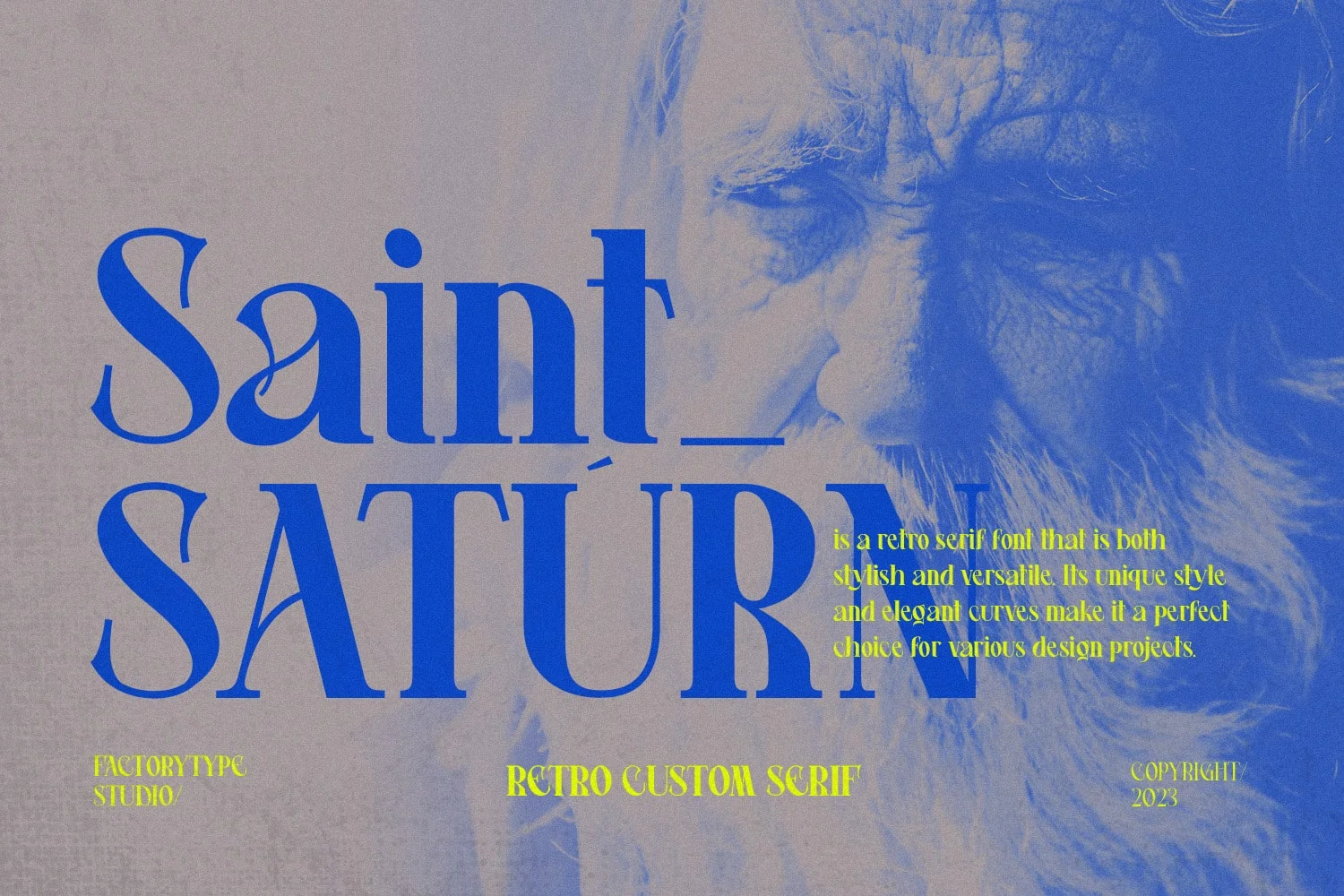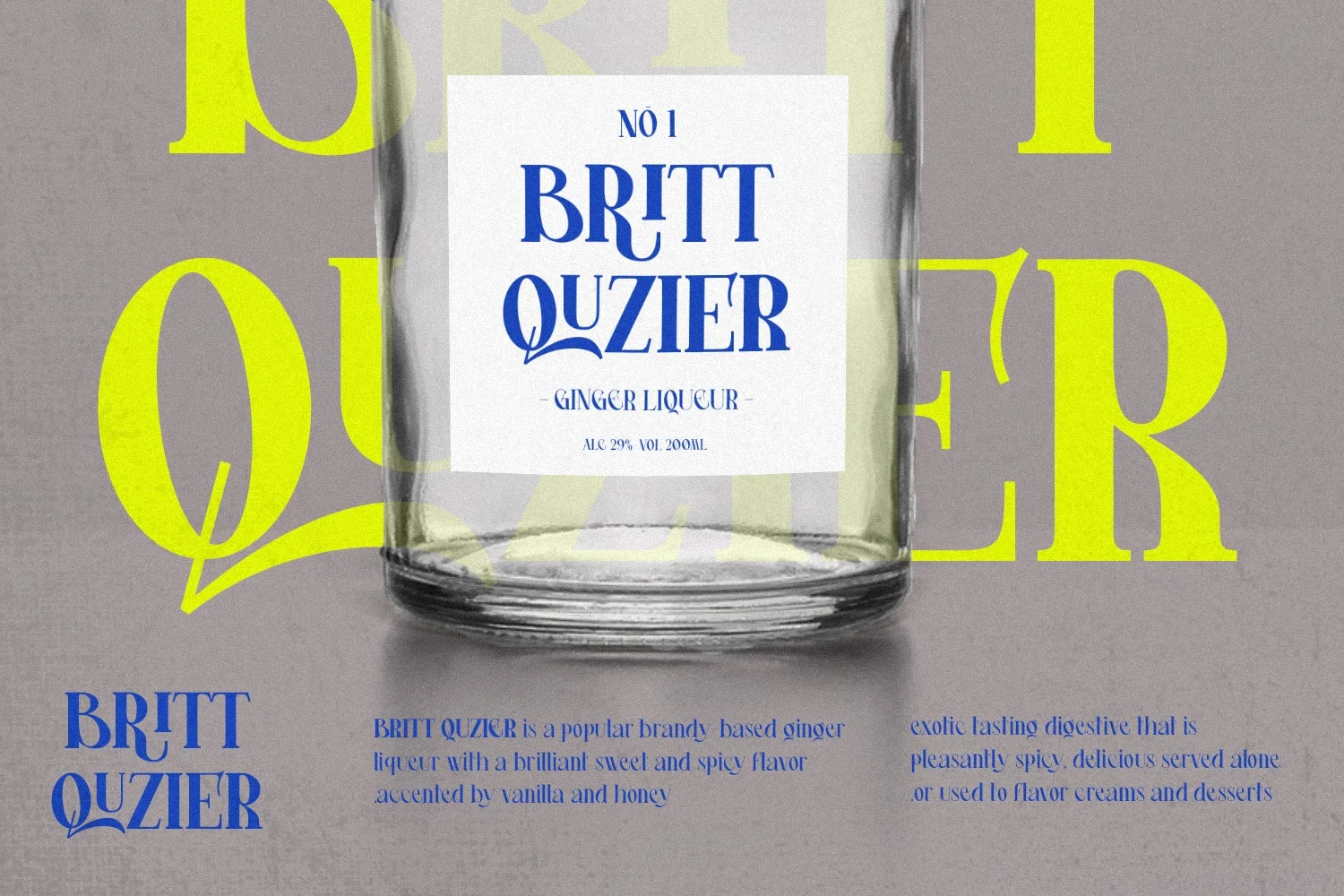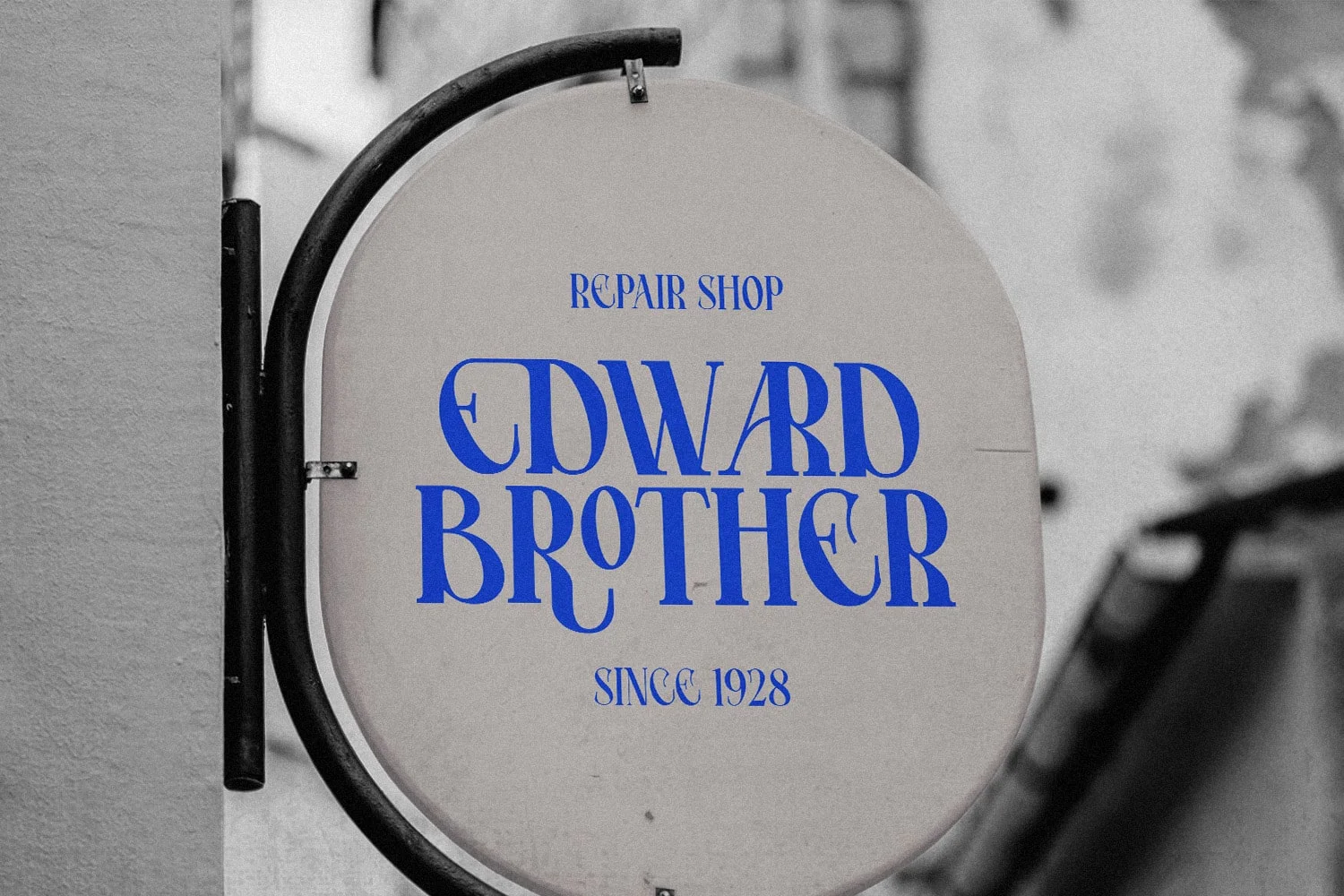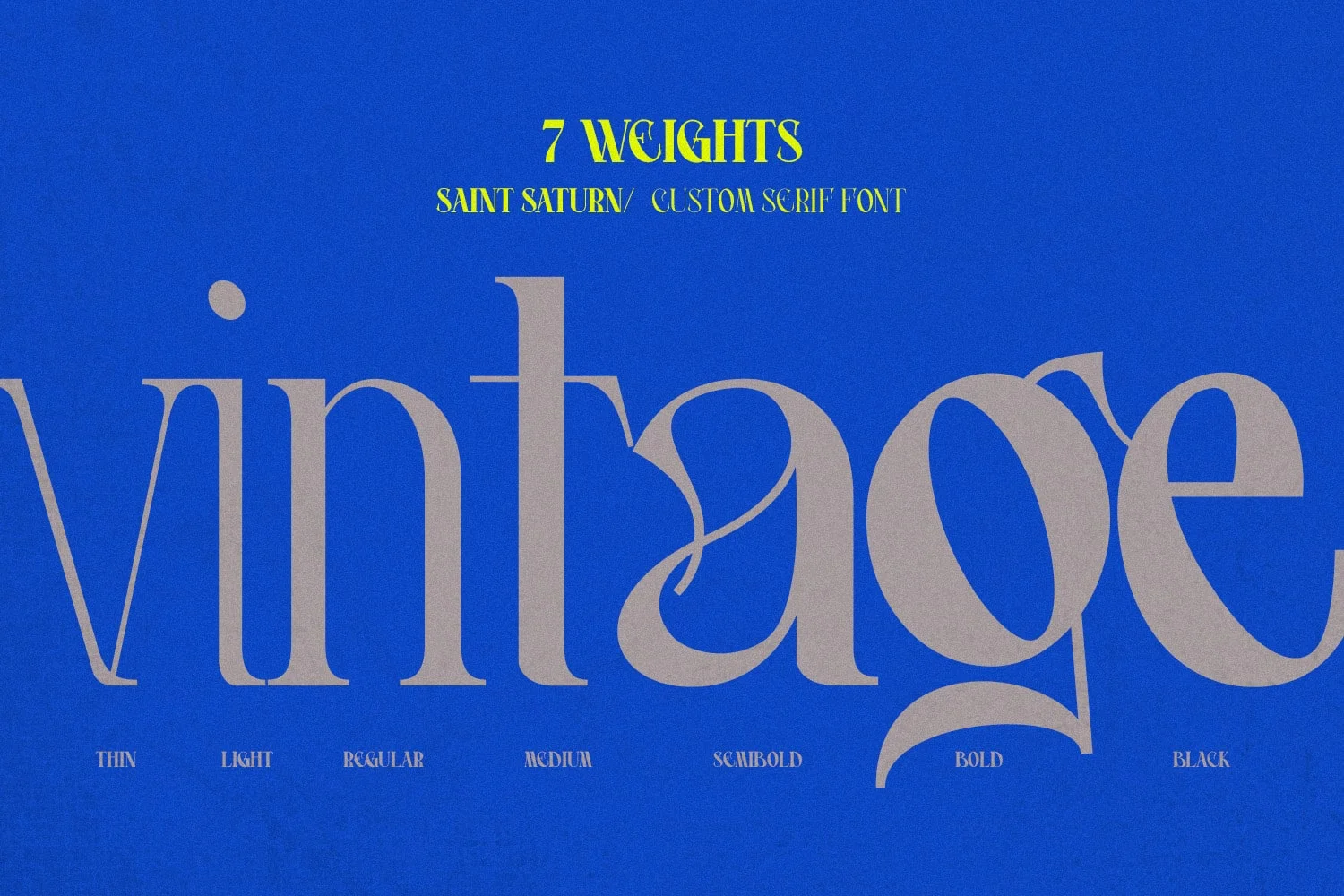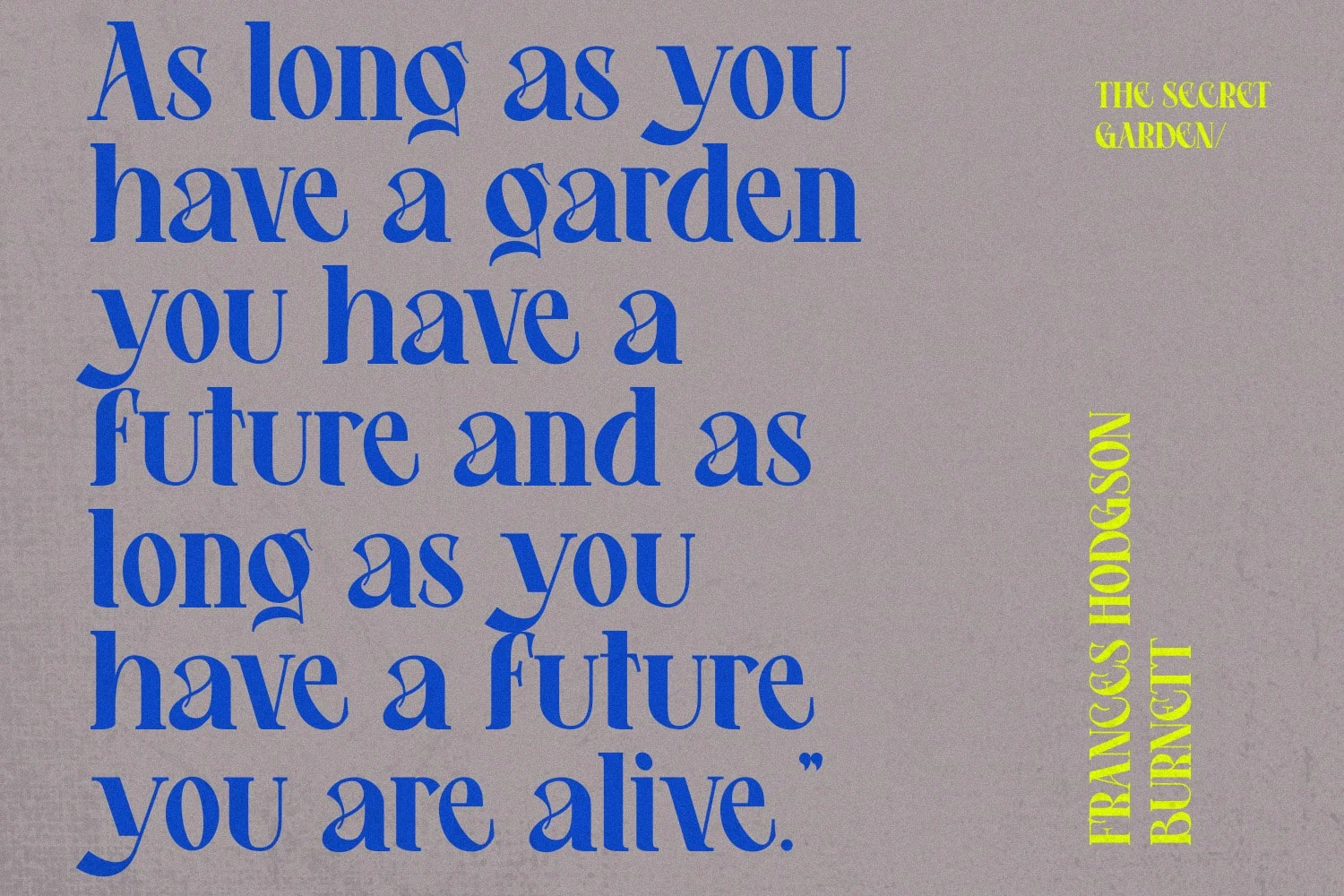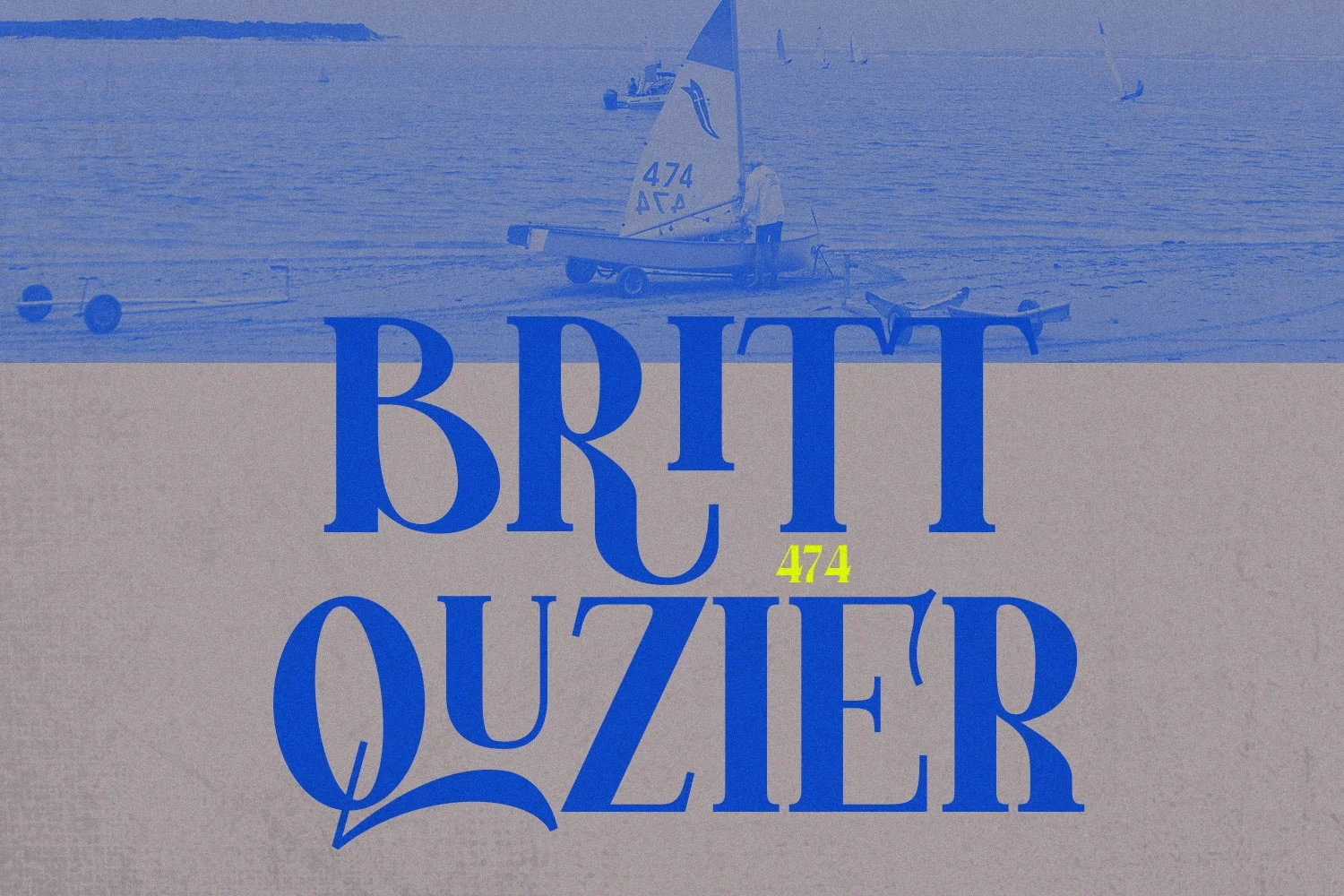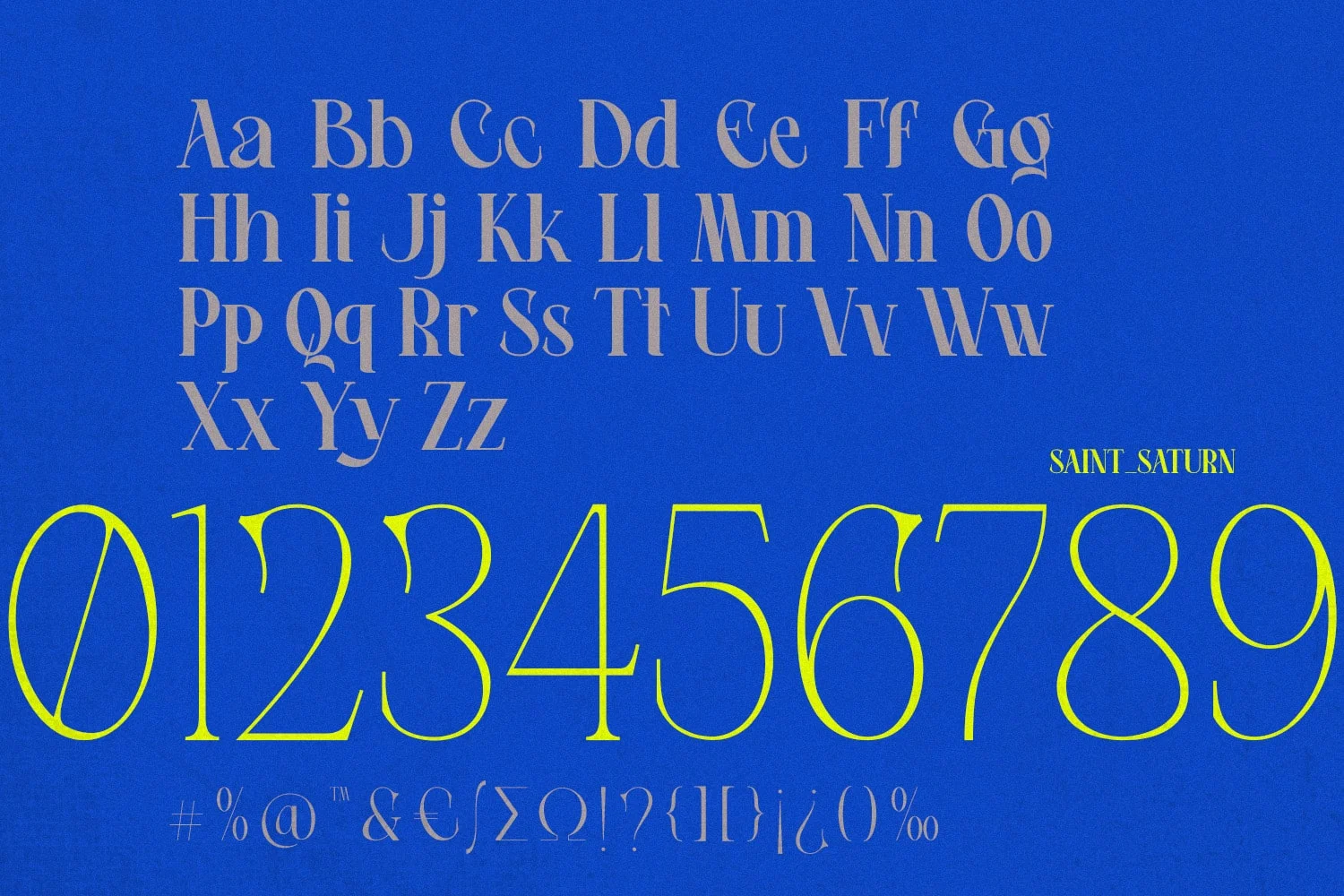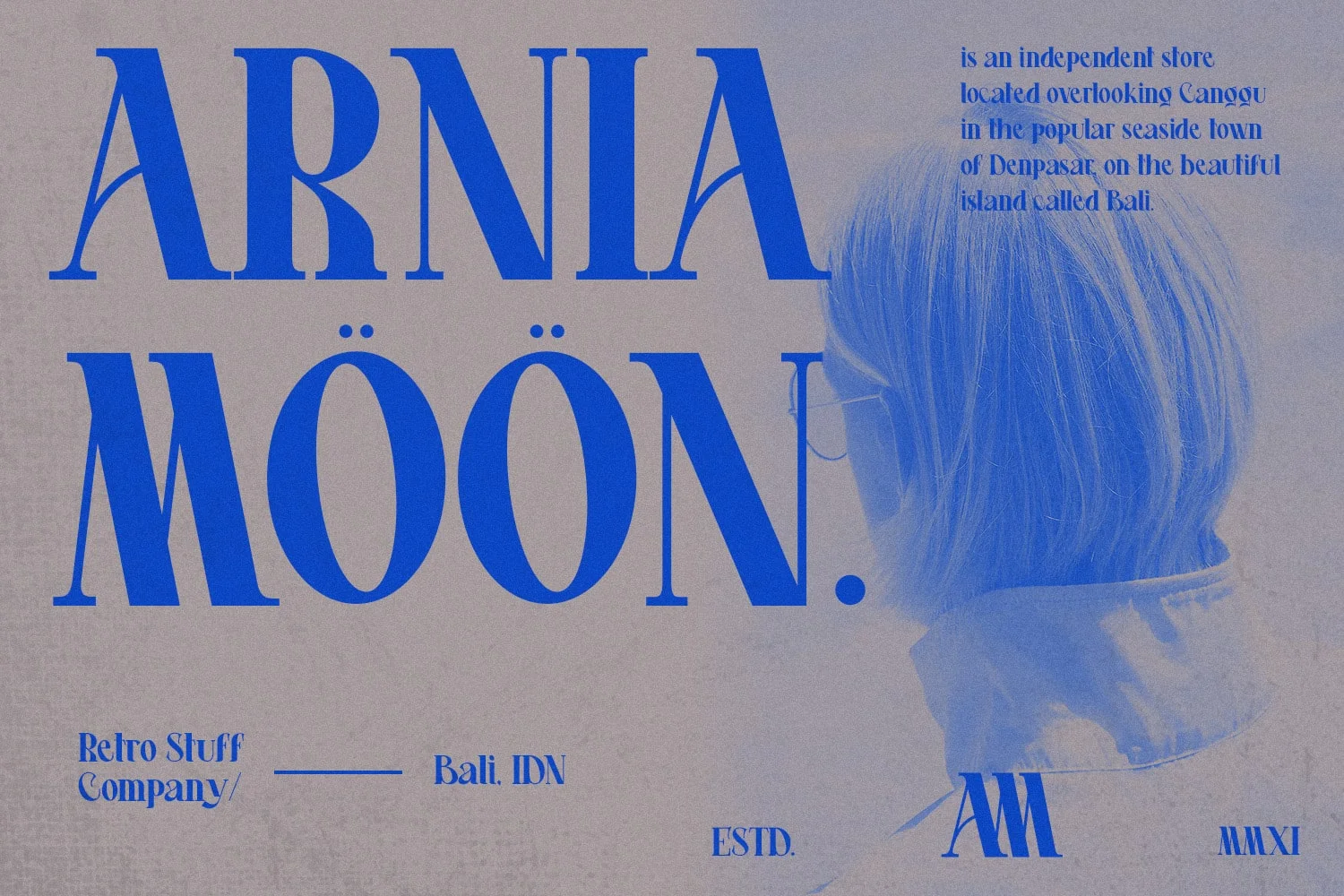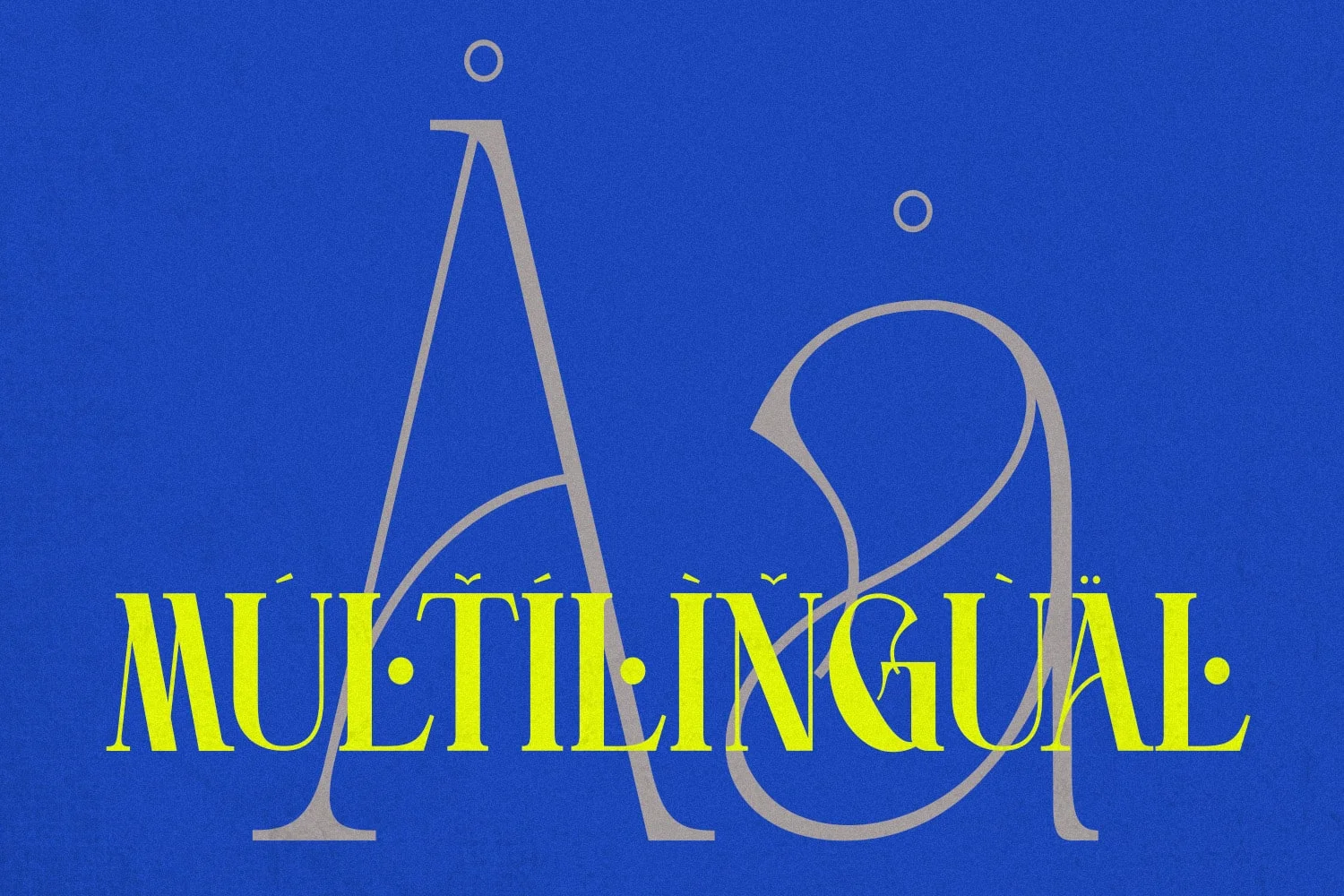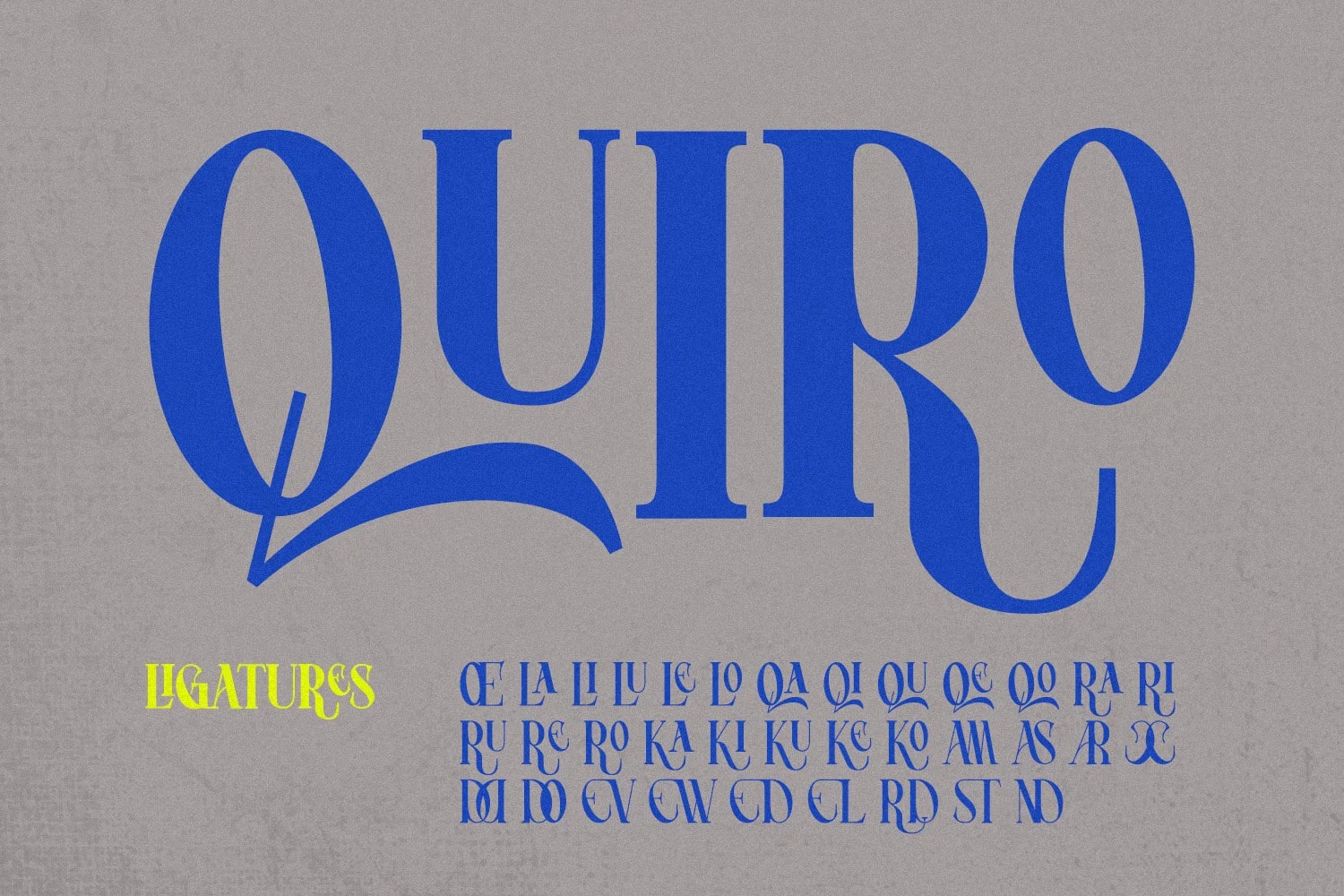
Are you looking for a new font to add to your collection? Look no further than St Saturn, a retro serif font that is both stylish and versatile. Whether you’re designing a logo, creating a website, or working on a print project, this font has the potential to elevate your work to the next level. Keep reading to learn more about the features that make St Saturn unique and how to use it effectively.
• 7 Weights
• Basic Latin A-Z and a-z
• Numerals & Punctuation
• Stylistic Ligatures and Alternate Glyphs
• Multilingual Support for ä ö ü Ä Ö Ü …
St Saturn Serif